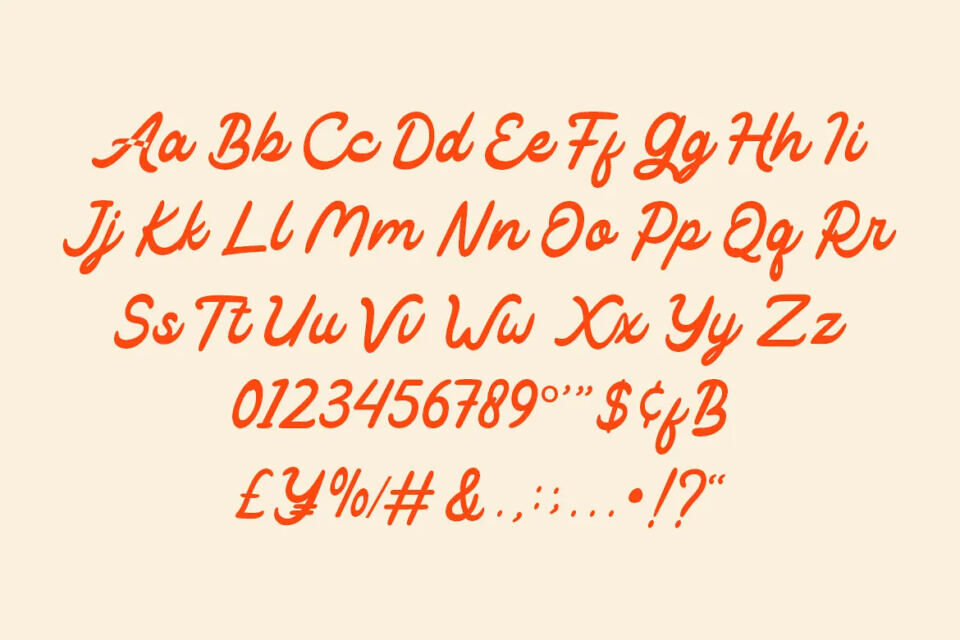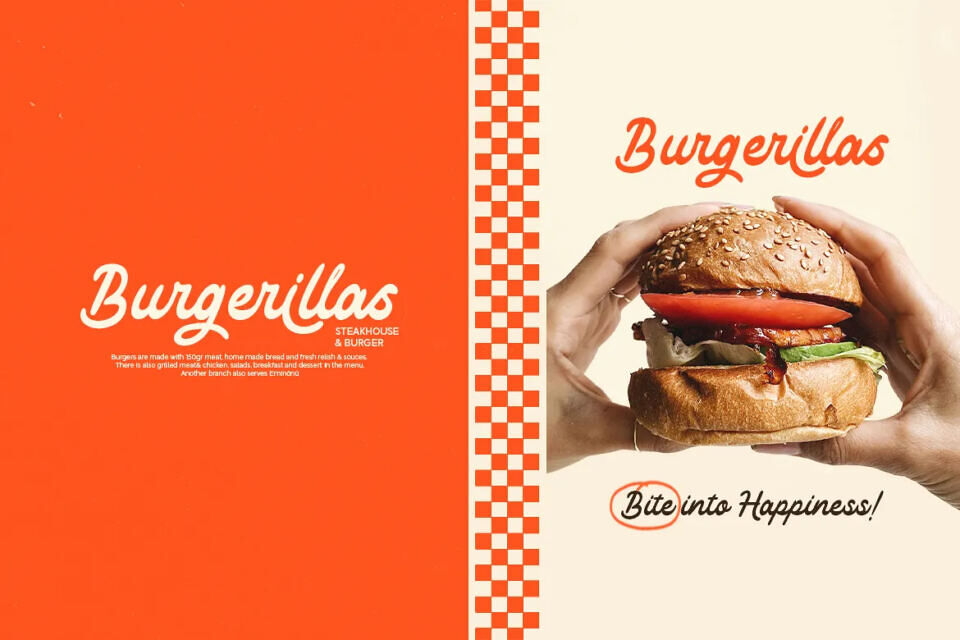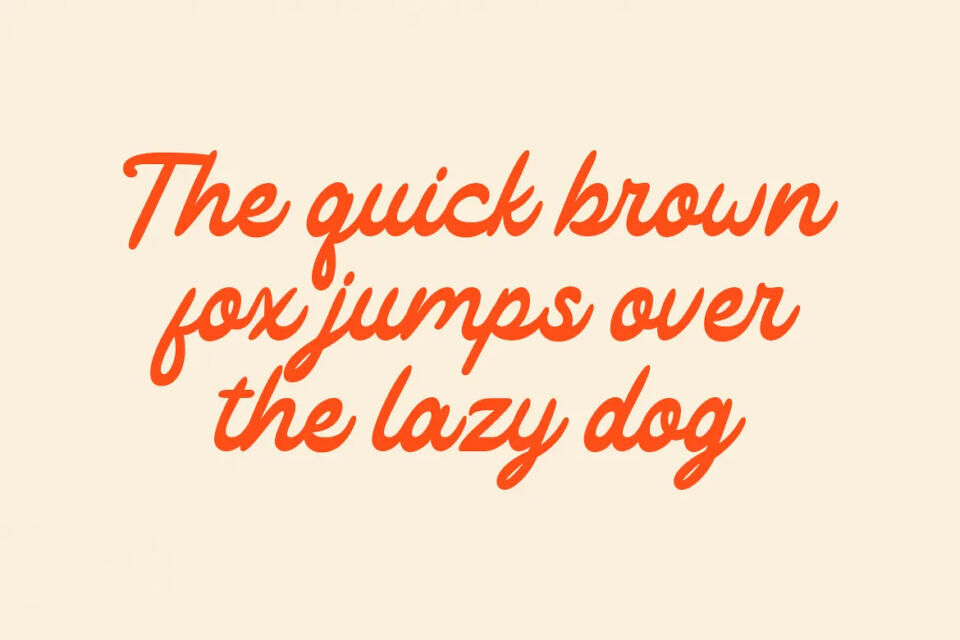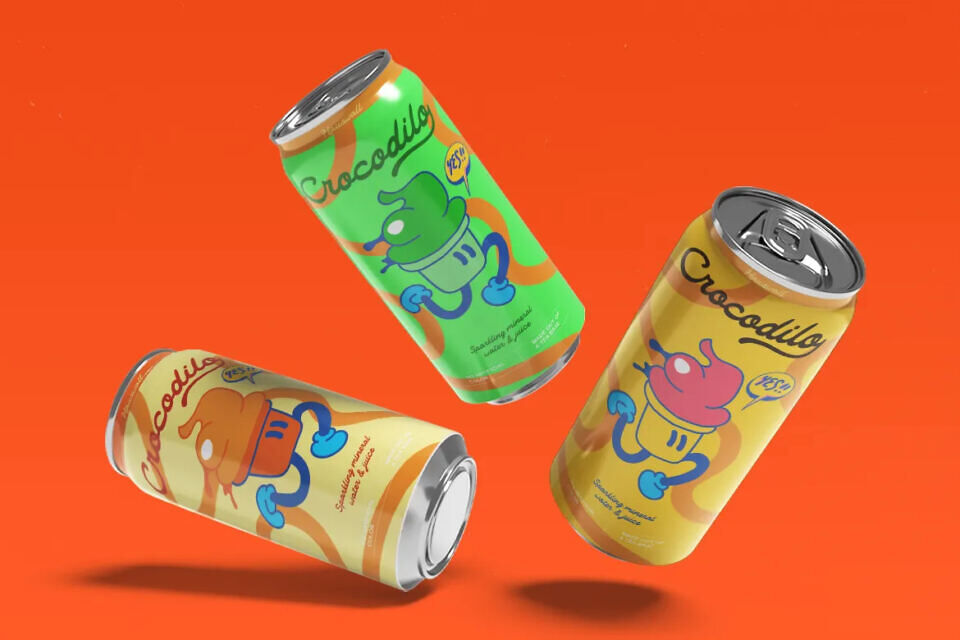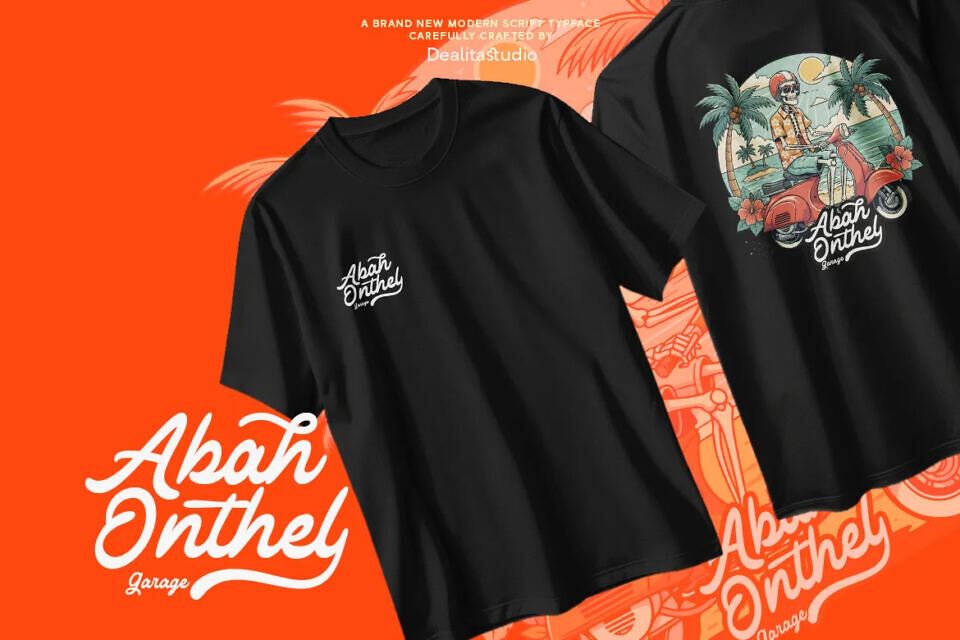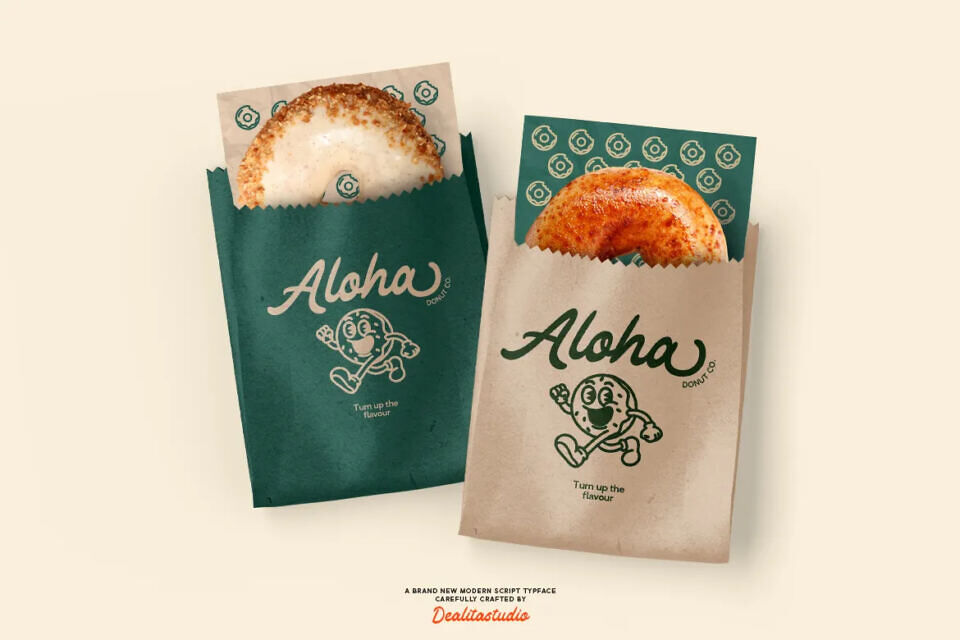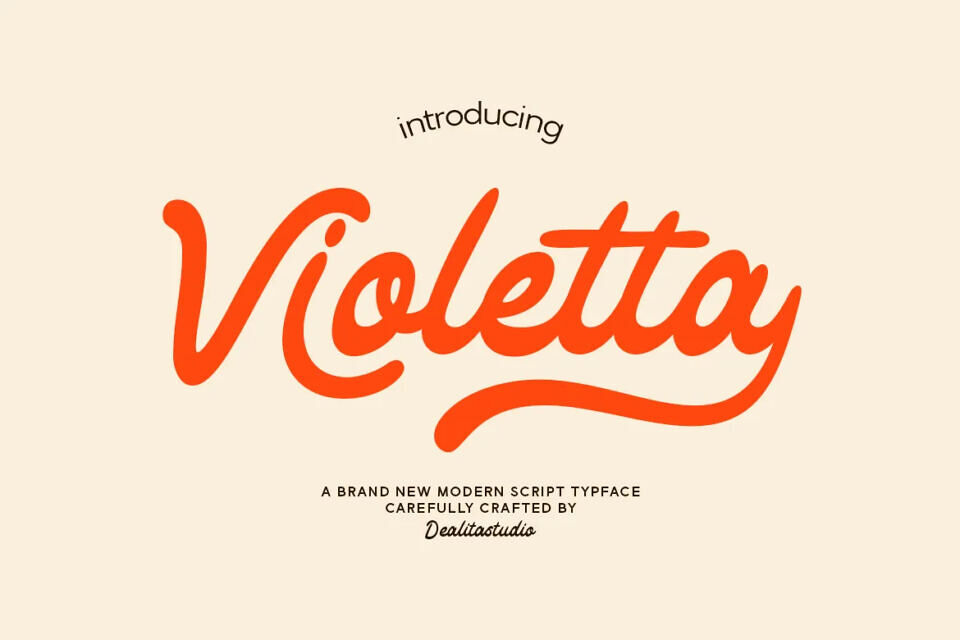
Violetta Font
Introducing Violetta, a refined retro script font that merges classic beauty with modern sophistication. With its fluid strokes, elegant ligatures, and vintage flair, Violetta is designed to bring timeless charm to your branding and creative projects.
Crafted with precision for both designers and non-designers, this display script font delivers a soft and luxurious look, perfect for creating standout visuals across logos, wedding invitations, social media content, packaging design, and more. Whether you’re designing for a boutique brand, a fashion label, or a personal event, Violetta offers a polished and professional edge.